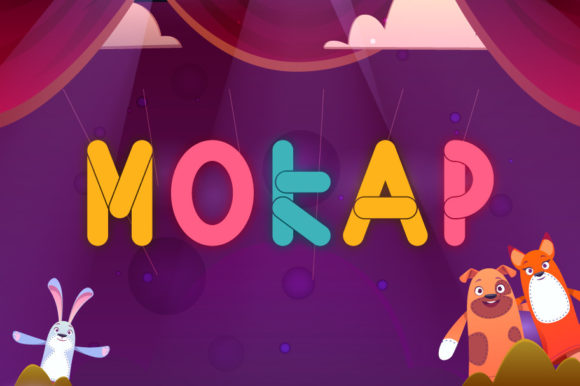
Unleash your creativity with Mokap, the playful font family that sparks joy and captures attention.
Designed by the talented muhammadfaisal40, Mokap is the perfect companion for your creative adventures, bringing a touch of whimsy and uniqueness to your designs.
With its charming and inviting appearance, Mokap is ideal for crafting captivating headings, eye-catching flyers, heartfelt greeting cards, unique product packaging, striking book covers, and inspiring printed quotes. Its versatility extends to logotype creation, apparel design, album covers, and so much more.
Imagine the impact of your designs when infused with Mokap's playful spirit. Scandinavian or childish projects come alive with a touch of whimsy, while everyday moments and special occasions alike are elevated with an air of celebration. Baby showers, birthday cards, and summer vacation designs radiate joy and happiness when adorned with Mokap's cheerful characters.
As a universal and modern font, Mokap opens up a world of endless possibilities. Its playful style adds a captivating dimension to any project, whether you're a seasoned designer or just starting your creative journey.
Join the growing community of designers who have discovered the magic of Mokap. Let your imagination soar and create designs that resonate with your audience, leaving a lasting impression that sparks joy and inspires creativity.
Welcome to the world of Mokap, where playfulness meets versatility, and creativity knows no bounds.